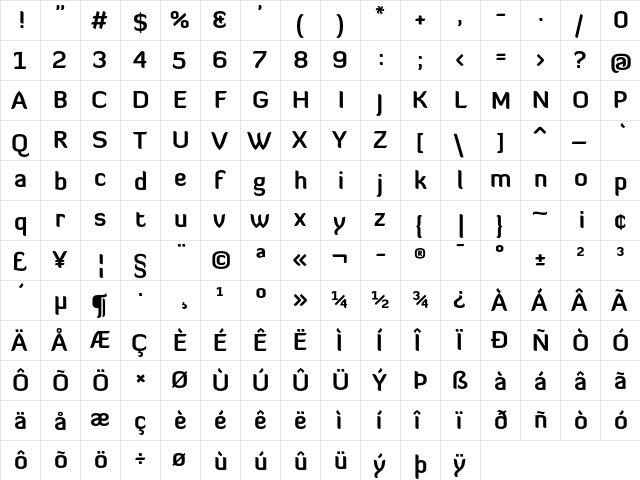
Diavlo Bold
| Foundry | Jos Buivenga |
| Designer | Jos Buivenga |
Design Context for Diavlo Typeface
Diavlo takes a measured approach to typography — its balanced proportions and neutral character make it a reliable workhorse for both digital and print work. The heavy weight commands attention and anchors typographic hierarchies.